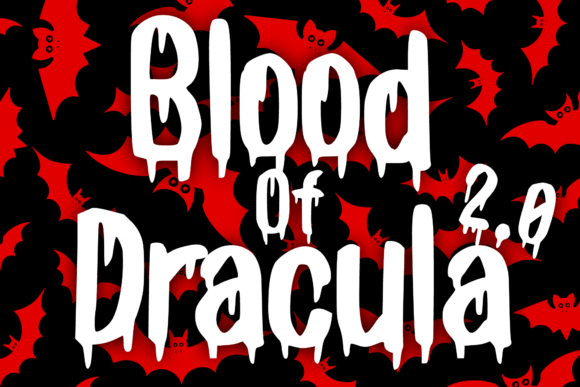
A Bloody Good Time for Designers
As a designer, you’ve probably found yourself stuck in a creative rut, staring blankly at a blank page, waiting for inspiration to strike. But what if I told you that the key to unlocking your next big design idea lies in the dark, gothic world of horror and Halloween?
Enter the Blood of Dracula 2.0 Font, a unique blood-dripping display font that’s sure to give your designs a spooky twist. Whether you’re working on a t-shirt design, a scary book cover, or a Halloween party invitation, this font is the perfect addition to your toolkit. With its bold, dripping letters, the Blood of Dracula 2.0 Font adds a level of sophistication and eeriness to any design, making it a valuable asset for designers looking to create hauntingly beautiful graphics.
Blood of Dracula 2.0 Font Key Features
• Font Family: Blood of Dracula 2.0 is a unique, hand-drawn font with a horror-inspired aesthetic.
• Unique Characteristics: Features intricate, hand-drawn details and bold, gothic-inspired lines, giving it a distinctive, eerie feel.
Blood of Dracula 2.0 Font Review
First off, let me say that I was excited to dive into this font. The idea of a vampire-themed font with a nod to the classics is intriguing. And I have to say, ✨ the design does deliver in some areas:
• ✨ The bold, gothic lines and lettering are reminiscent of the classic Dracula tales.
• ✨ The font’s use of a dark, muted color scheme effectively evokes a sense of mystery and foreboding.
• ✨ The font’s versatility allows it to be used in a variety of applications, from book titles to website headers.
However, there are some limitations that prevent me from giving this font a higher rating. ⚠️ Here are a few:
• ⚠️ The font’s readability suffers in smaller sizes, making it difficult to use in body text.
• ⚠️ The font’s design can feel a bit too over-the-top, making it more suited to horror-themed projects rather than more serious applications.
Overall, I’d give the Blood of Dracula 2.0 Font 3 out of 5 stars. While it has its strengths, its limitations hold it back from being a truly great font. Still, it’s a solid choice for the right project, and I can see it being a hit with fans of the horror genre.
Use the “Blood of Dracula 2.0 Font” to create a spooky or gothic atmosphere in your designs.
Combine the font with dark colors and imagery to create a dramatic effect.
Experiment with different font sizes and styles to create a unique look.
Use the “Blood of Dracula 2.0 Font” for:
Horror movie posters and promotions.
Spooky-themed invitations and